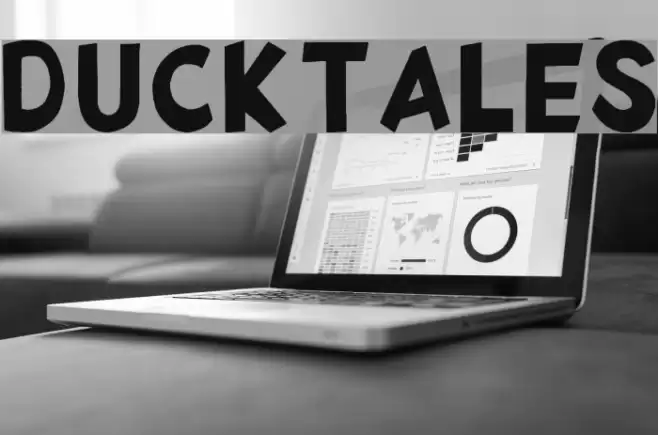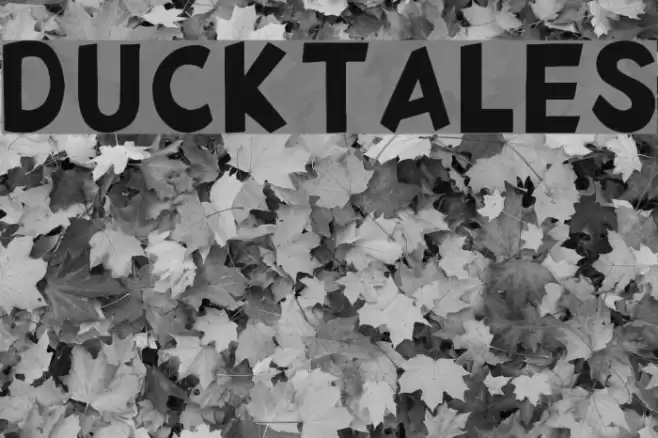
DuckTales Font
DuckTales Description
This font features a bold and playful style, characterized by its thick, uneven strokes and slightly irregular shapes. The letters have a hand-drawn appearance, giving them a whimsical and energetic feel. The uppercase and lowercase letters maintain a consistent style, with rounded edges and a slightly exaggerated form that adds to the font's charm. The numbers follow the same playful design, ensuring a cohesive look across all characters. This font is ideal for projects that require a fun and engaging aesthetic, making it suitable for children's books, cartoons, or playful branding.
A bold, playful font with a hand-drawn, whimsical style from Uncategorized fonts.
- Proposed Projects: Ideal for children's books, cartoons, playful branding, and any project needing a fun, engaging aesthetic.
- Overall Style: Playful, Whimsical, Energetic
- Use Case: Headlines, Logos, Children's content